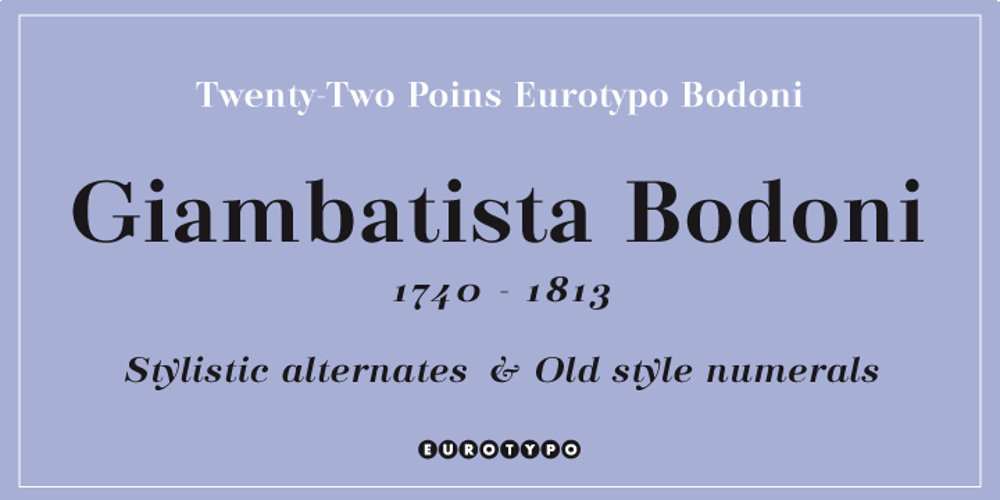
Eurotypo Bodoni Font Family was designed by Olcar Alcaide and published by Eurotypo. Eurotypo Bodoni contains 3 styles and family package options. Talking about the numerous types that today bear the name of Giambattista Bodoni are a kind of tribute as much to his reputation as a printer as to his ability as designer and engraver. In fact, all of them tent to be more in the way or style of Bodoni than simply copy of his letterforms. Like many other type designers, we’ve been seduced also to develop our own point of view of his work, nowadays enriched by some features of OpenType format that allows a variety of combinations: standard ligatures, discretional ligatures, stylistic alternates and old styles figures. Whereas the Bodoni serif in the capitals was of the same weight as the thin stroke but joined with a very slight fillet (Bracket) and the lowercase serif were like his French rivals, the Didots, featured straight- edged serifs that were unbracketed. The ascenders and descenders of this new Bodoni are shorter, giving in this way, more space for enlarge x high. Specially designed for editorial design and advertising, can be used in magazines, annual reports and all kind of fine print materials or web pages. The beauty of his letterforms can enrich headlines; this font can also be used as body text for its good legibility and accurate kerning.